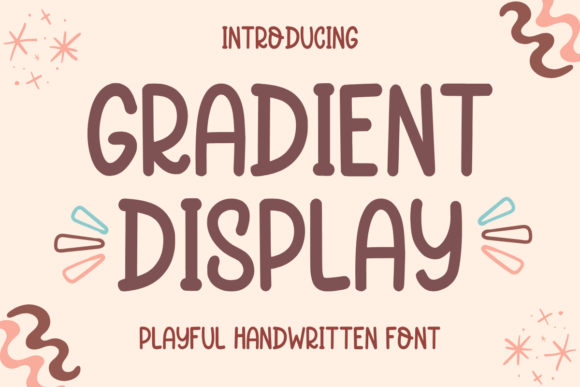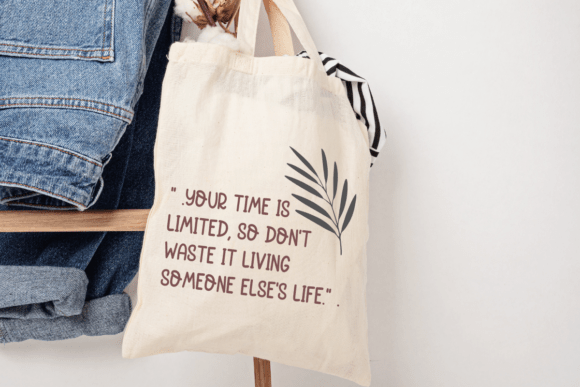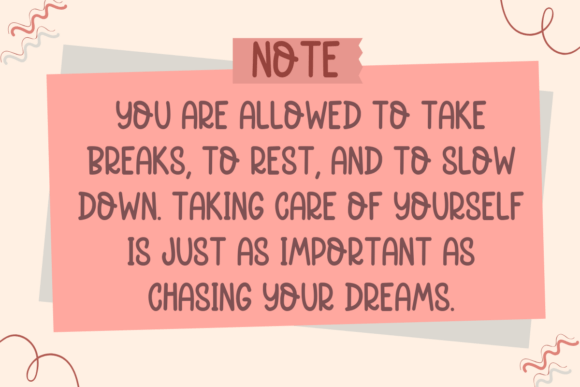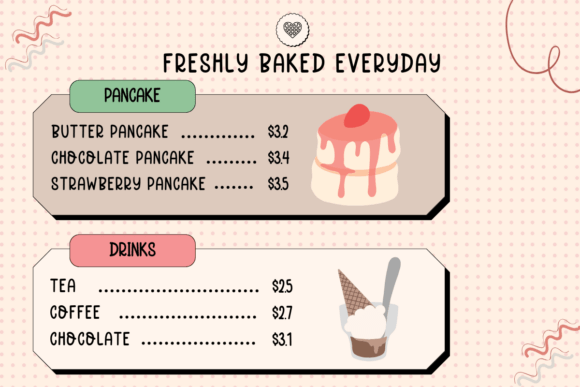
Gradient Display Font
About the Gradient Display Font
Experience the unique personality of Gradient Display Font, a font designed for impact. Gradient Display is a fun and playful handwritten font that’s perfect for crafts, planners, KDP, stickers, greeting cards, and more. With its cute and friendly style, it works great for Cricut, sublimation, and creative DIY projects. Ideal for crafters, designers, and makers!
Gradient Display’s playful hand-drawn style shines in headlines, short taglines, and playful branding projects. It’s excellent for packaging, posters, and social media graphics where a friendly, approachable feel is desired. However, its informal nature makes it unsuitable for body text or UI elements requiring high readability.
Consider pairing it with a clean sans-serif like Open Sans for balance, or a slightly more geometric sans-serif for a modern contrast. A simple serif like Lora could also add a touch of sophistication while maintaining the overall lighthearted feel.
The font’s core personality is undeniably cheerful and approachable, making it a strong choice for brands targeting a young, creative audience. Avoid using it in contexts demanding seriousness or professionalism.
Gradient Display Font Usage Examples
Gradient Display Font Example